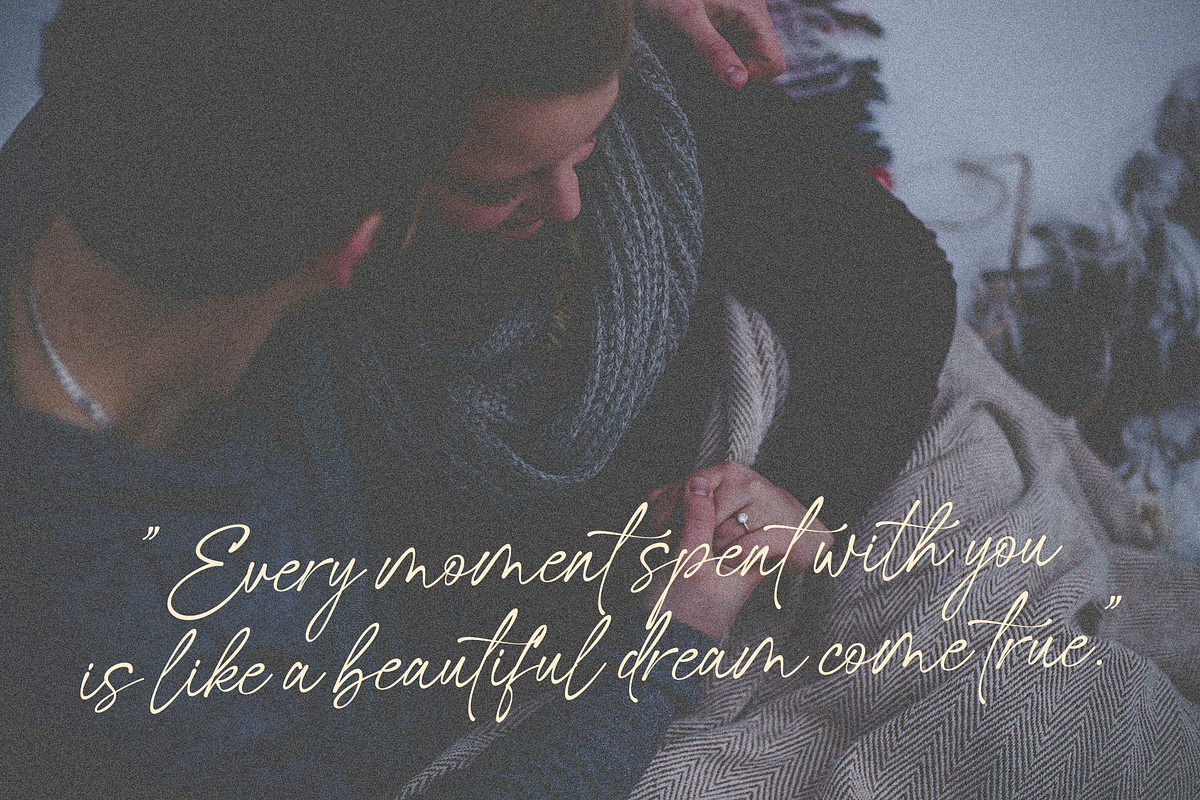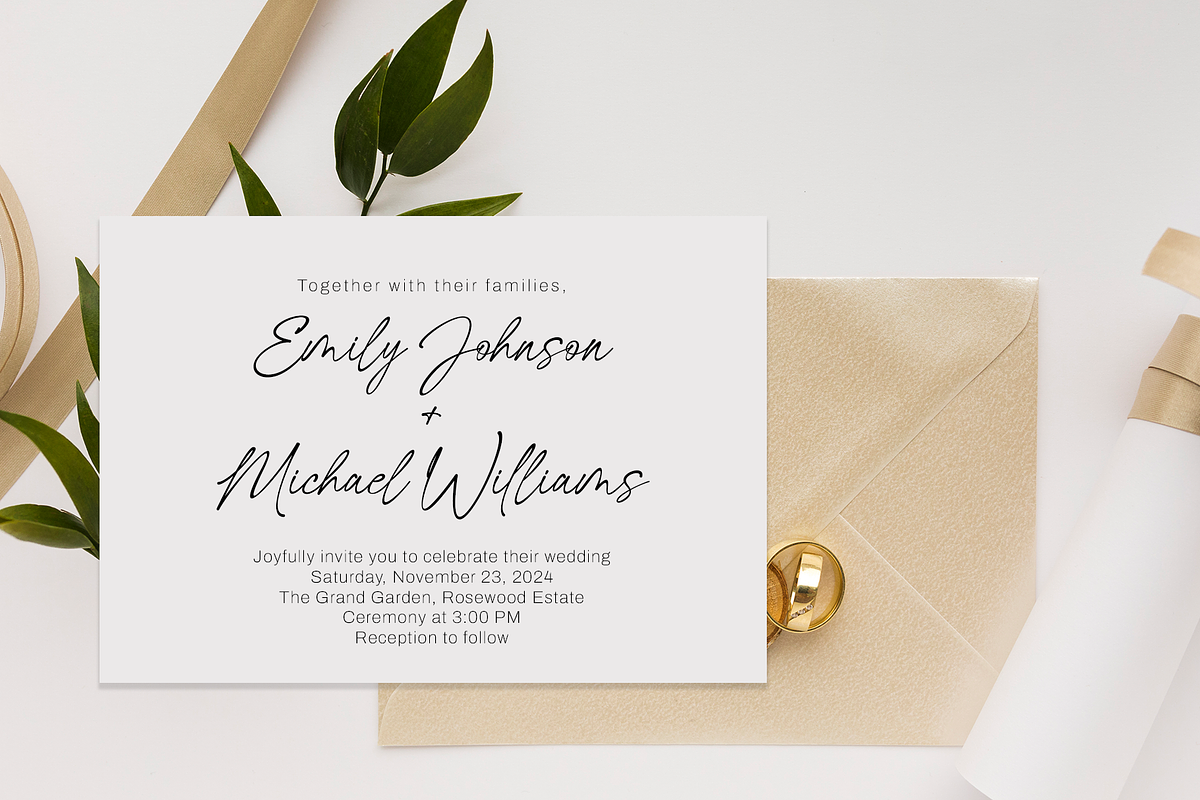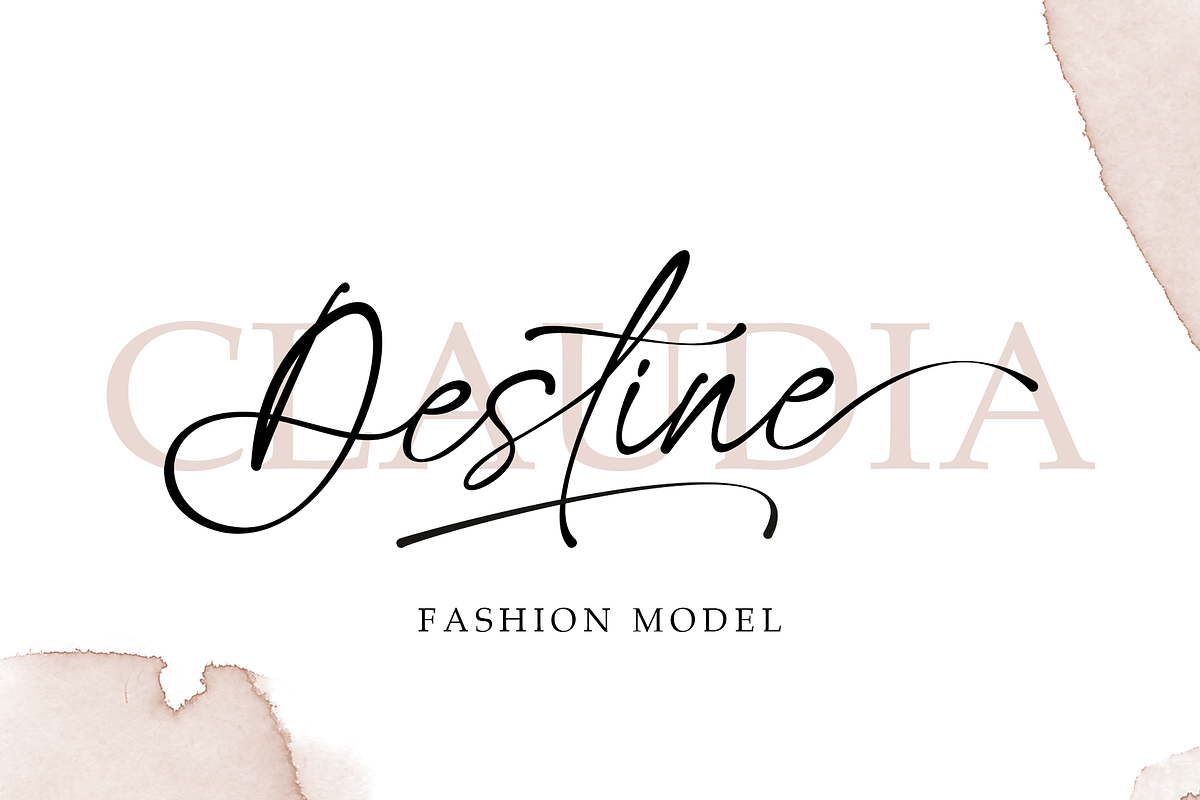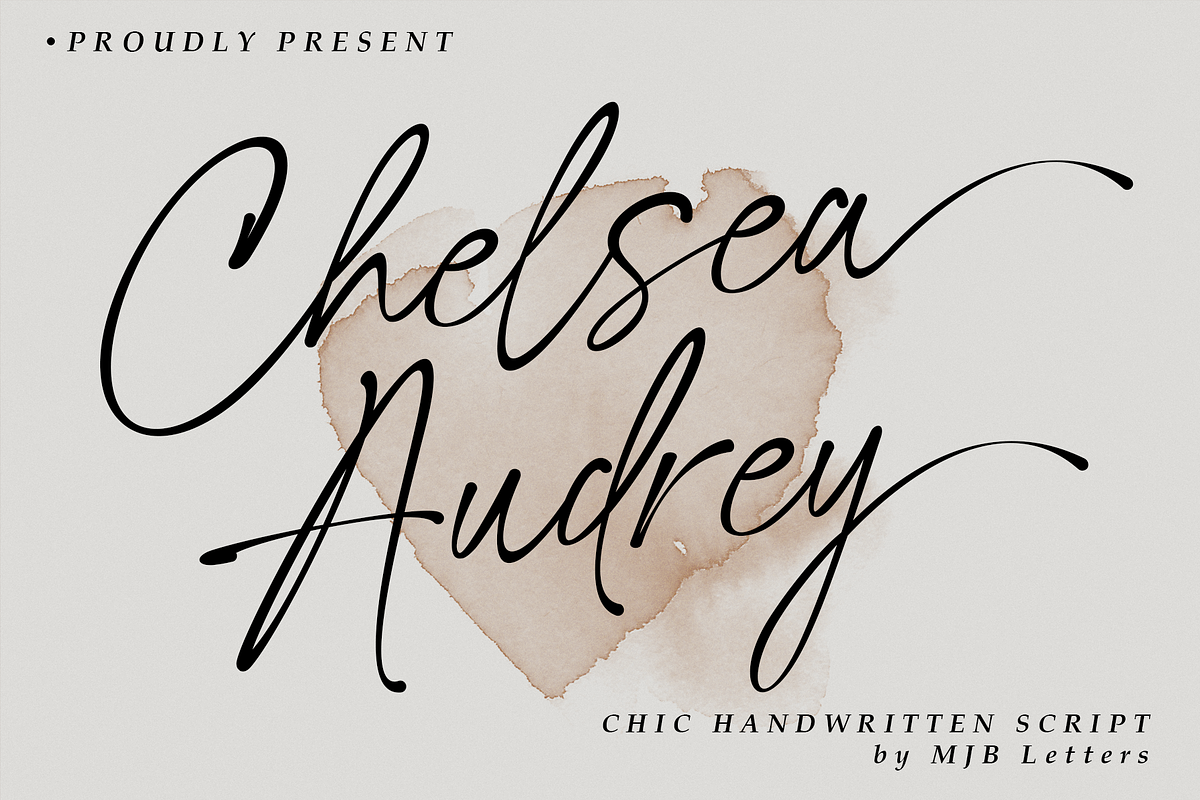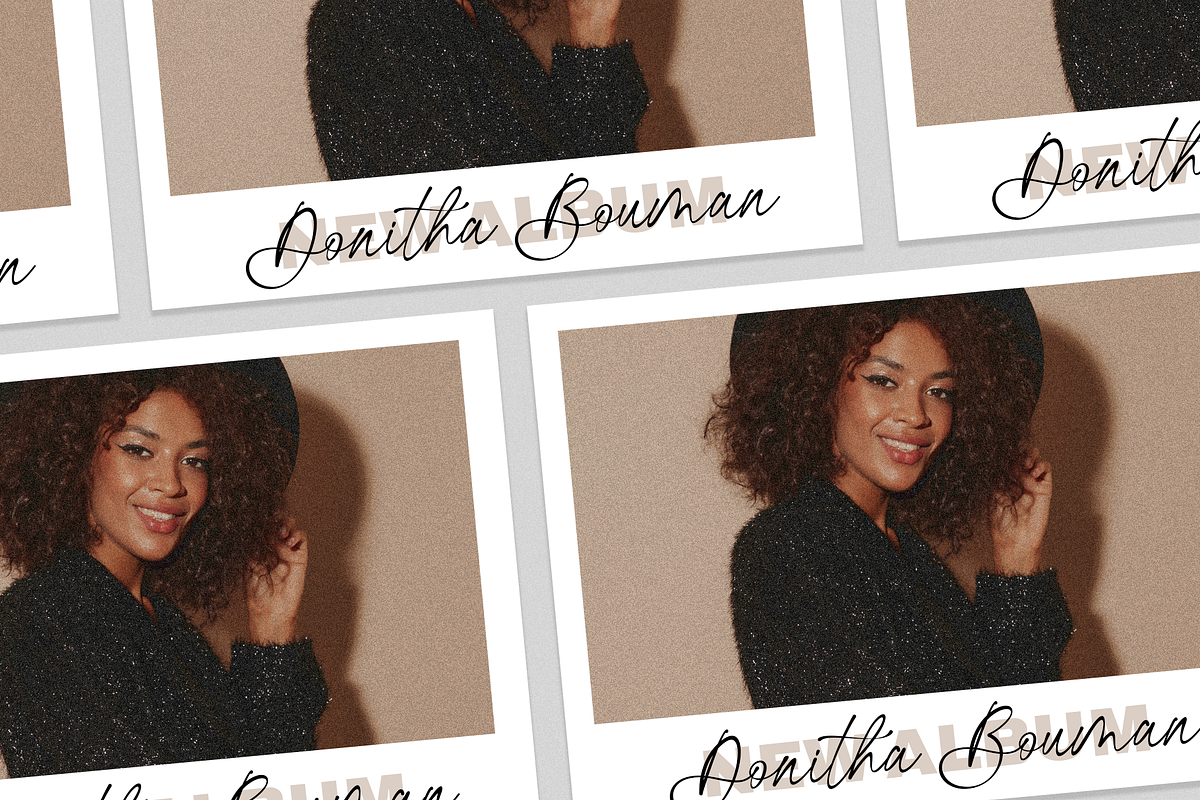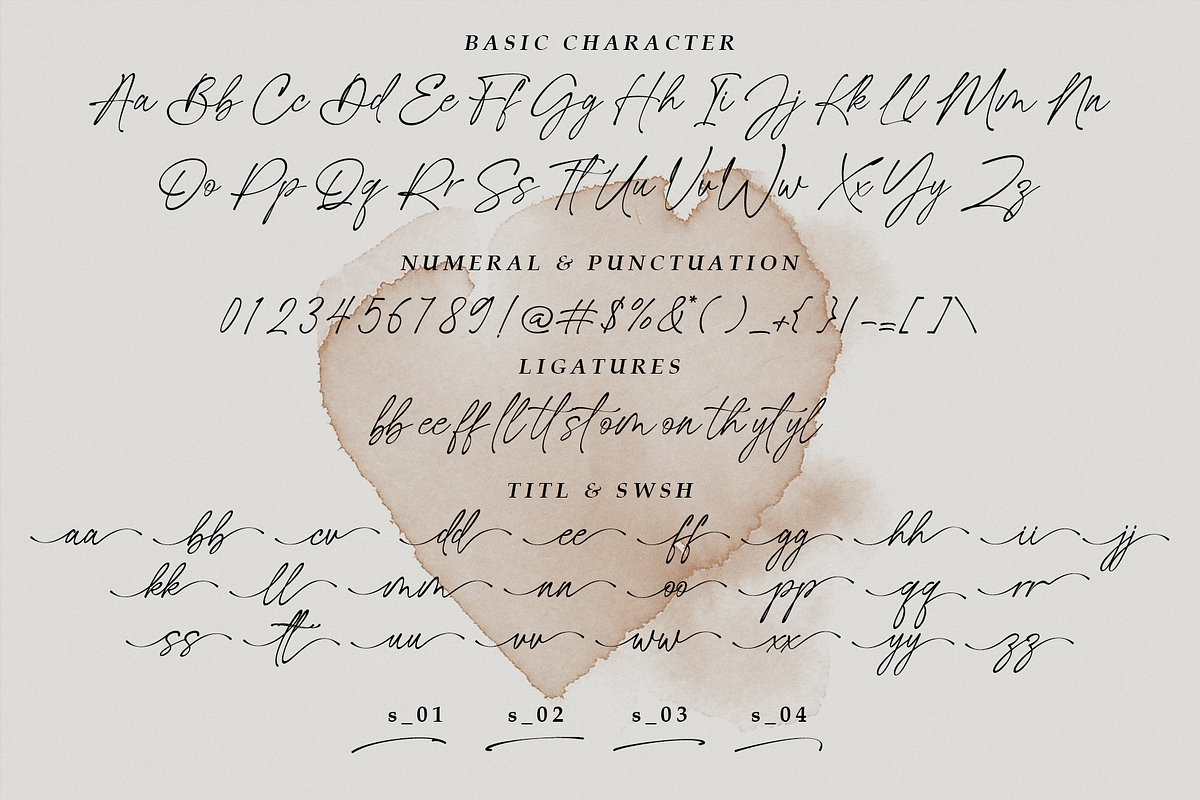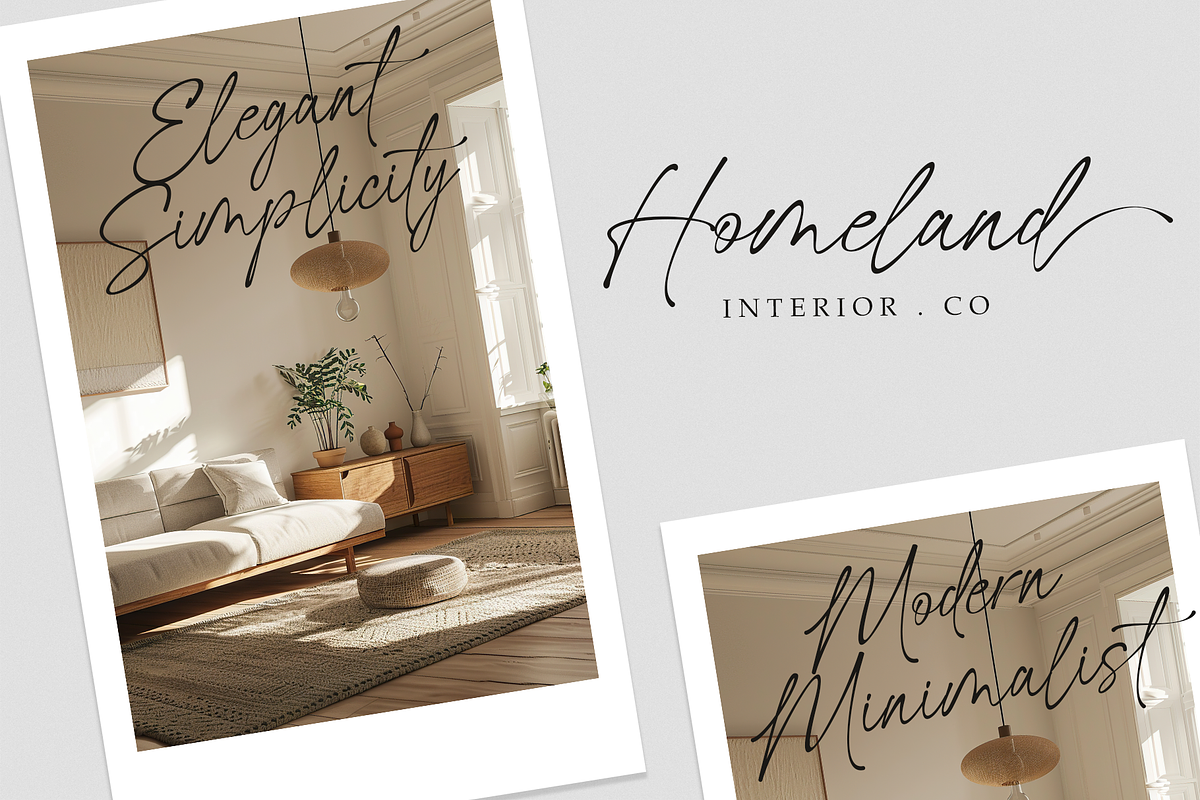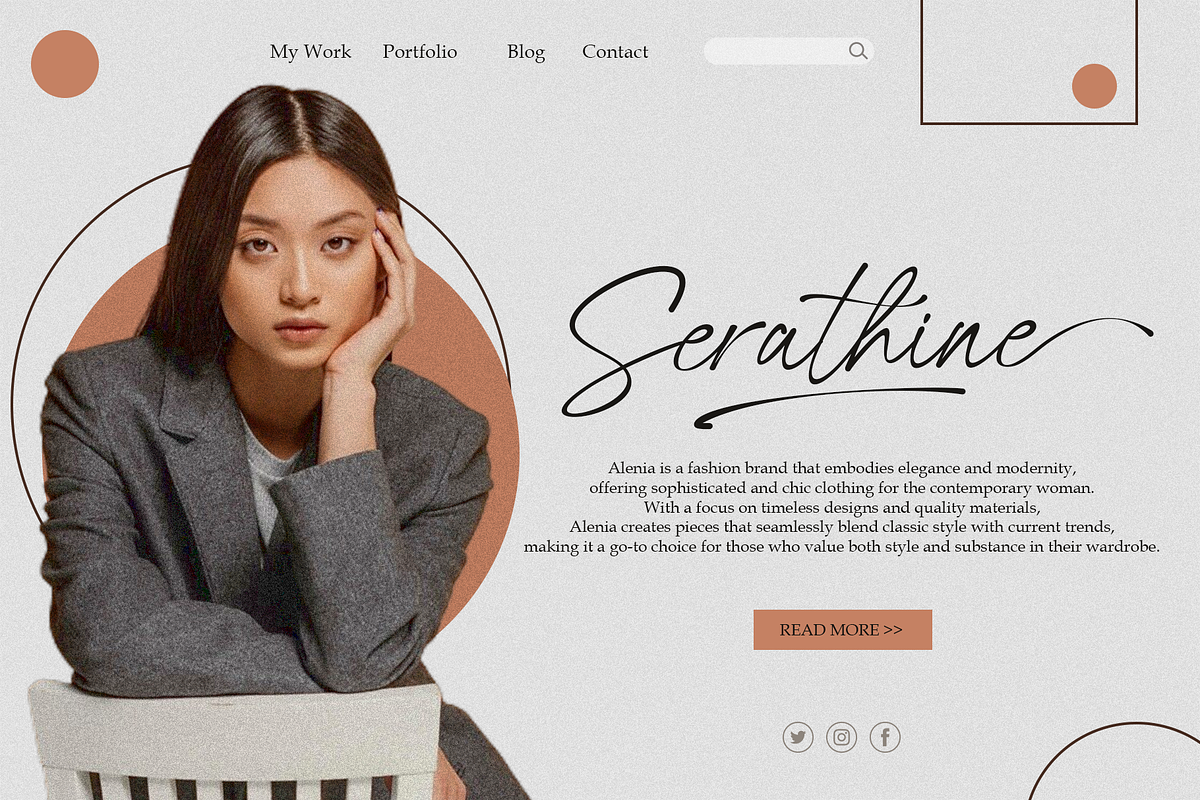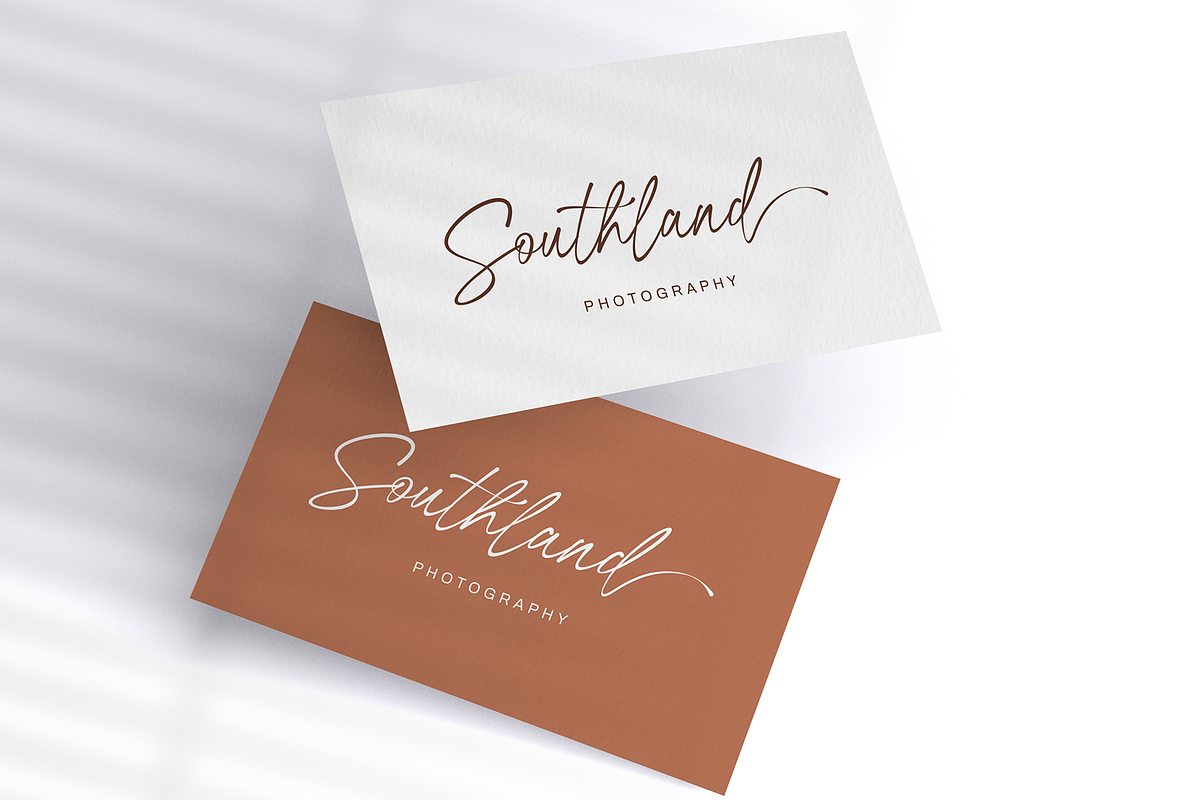
Chelsea Audrey - Handwritten Script
Chelsea Audrey is a refined and elegant Modern Script/Calligraphy font that brings a touch of sophistication to any project. Perfectly suited for weddings, logos, branding, packaging, and quotes, this versatile typeface is designed to elevate your creative work.
With features like ligatures, beginning and ending swashes, and full PUA encoding, Chelsea Audrey offers endless design possibilities. Additionally, it supports multiple languages, ensuring your message resonates across diverse audiences. Available in TTF, OTF, and Woff formats, this font is ready to enhance your design projects with style and grace.
Features: – Basic Latin A-Z and a-z – Numbers – Symbols – PUA Encode – Multilanguage Support – Underline Swashes – Ligatures